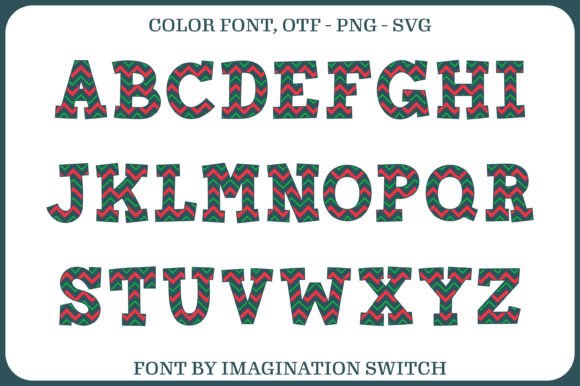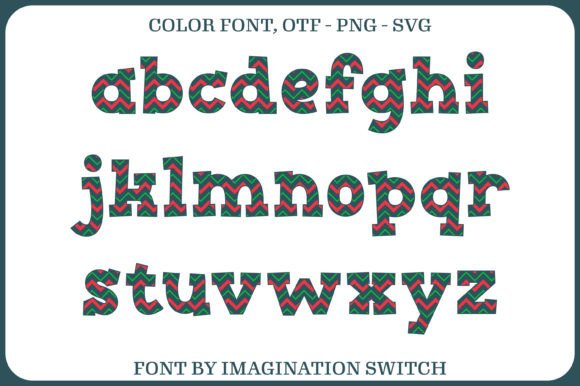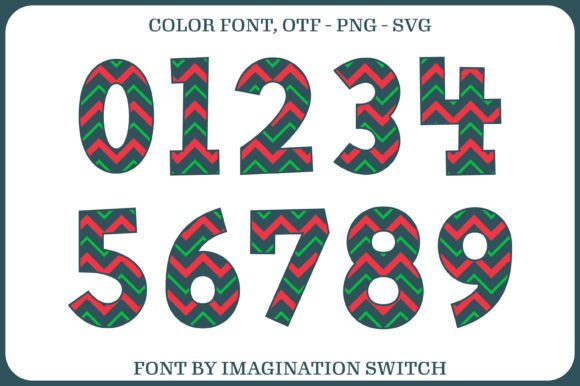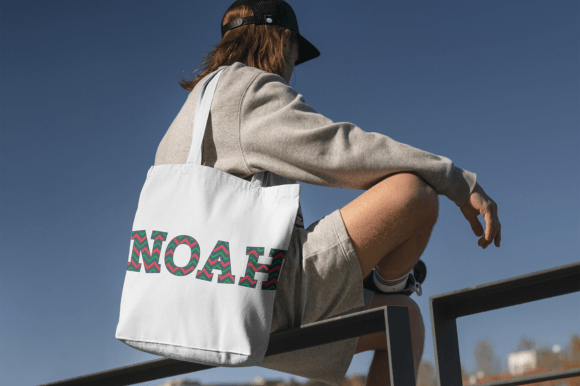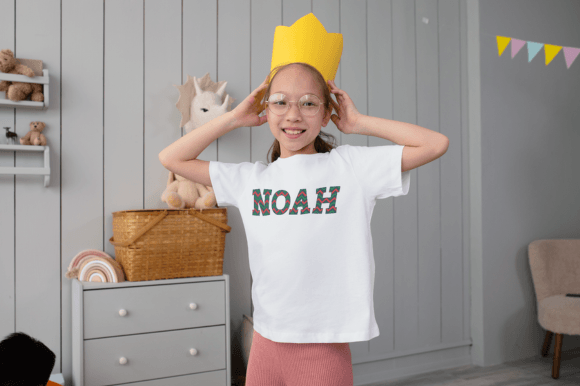
Introducing the Christmas Ornament Font: A Festive Typographic Marvel
Are you looking for a font that adds a touch of magic to your designs? Look no further than the Christmas Ornament Font, a captivating typographic creation that is sure to mesmerize your audience. This font is a unique and creative way to add some festive flair to your projects, making it perfect for designers and crafters alike.
A Font Like No Other
The Christmas Ornament Font is a carefully crafted typographic design that utilizes intriguing colors to enhance its visual appeal. With a complete set of characters, including uppercase, lowercase, and numbers, this font has been meticulously designed to provide flexibility across various types of projects. Whether you’re working on print designs, web designs, promotional materials, or more, this font is sure to make your designs stand out.
Unleash Your Creativity
When you utilize the Christmas Ornament Font, you introduce uniqueness and creativity to your designs. The carefully chosen colors for each character add a mesmerizing visual touch, making each word and number stand out. This font is perfect for designers who want to add a personal touch to their work and create unforgettable designs. With the Christmas Ornament Font, you can express your creativity in every project you undertake, crafting designs that are sure to leave a lasting impression.
Excellent Legibility and Versatility
One of the standout features of the Christmas Ornament Font is its excellent legibility and visually appealing presentation. This font is designed to be easy to read, making it perfect for a wide range of purposes, including:
- Print designs: Use the Christmas Ornament Font to create stunning print materials, such as brochures, flyers, and posters.
- Web designs: Add a touch of festivity to your website with this unique font.
- Promotional materials: Use the Christmas Ornament Font to create eye-catching promotional materials, such as business cards and banners.
Compatibility and Flexibility
If you’re looking for inspiration for your designs, here are a few tips to get you started:
- Use the Christmas Ornament Font to create custom holiday cards and gift tags.
- Add a touch of festivity to your website or blog with this unique font.
- Use the font to create eye-catching promotional materials for your business.
In conclusion, the Christmas Ornament Font is a unique and creative typographic design that is sure to add a touch of magic to your designs. With its excellent legibility, versatility, and compatibility, this font is perfect for designers and crafters alike. Whether you’re looking to create custom holiday cards, add a touch of festivity to your website, or create eye-catching promotional materials, the Christmas Ornament Font is the perfect choice.
Get Creative with the Christmas Ornament Font
So why wait? Get creative with the Christmas Ornament Font today and add a touch of festivity to your designs. With its mesmerizing colors and unique typographic design, this font is sure to make your designs stand out. Whether you’re a designer or crafter, this font is perfect for anyone looking to add some creativity and flair to their work.